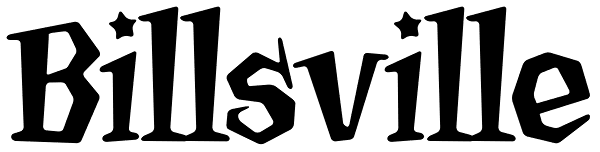
Billsville
Billsville is a fun font that mixes the casual sassy flair of an old Flintstone cartoon with the upright legible nature of a classic serif font to create something entirely new. Although based primarily on straight lines and simple letterforms...
Billsville Font